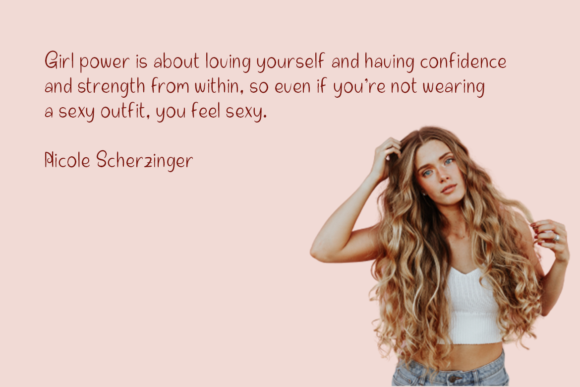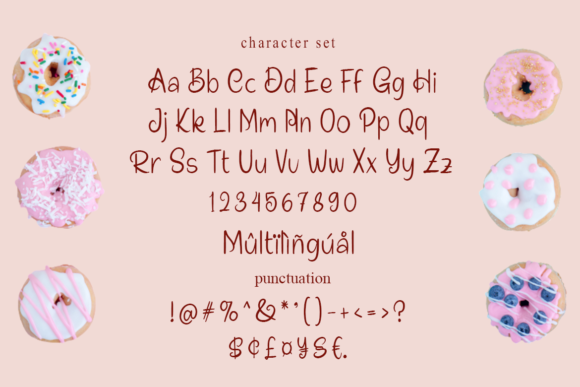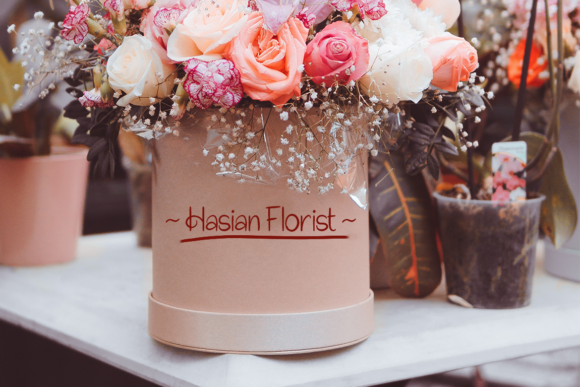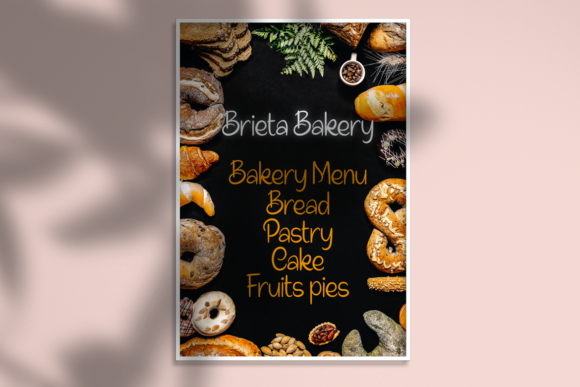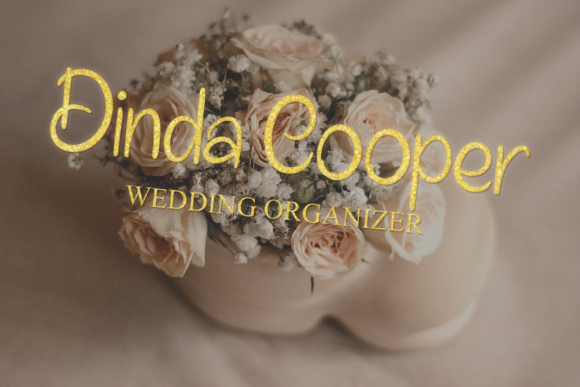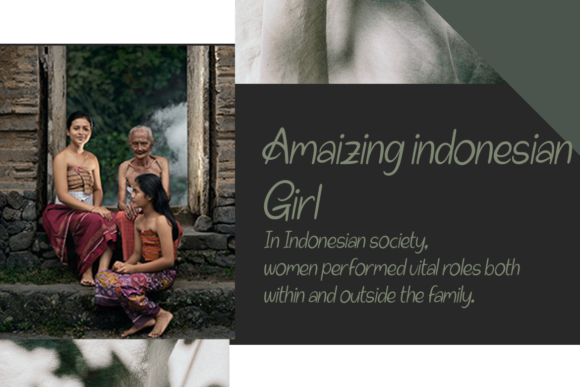
Discover the Magic of Aubrieta Font
Have you ever been working on a design project and felt like something was missing – a little extra something that would bring it all together? Maybe it’s the perfect font, the one that captures the essence of your vision and transports your audience to a world of joy and romance. For designers, finding that perfect font can be a game-changer.
Enter Aubrieta Font, a beautiful, cursive handwritten font that is sure to delight. With its gentle curves and playful flair, Aubrieta Font is the perfect addition to any design project. Whether you’re creating a wedding invitation, a birthday card, or a romantic blog post, Aubrieta Font will add a touch of whimsy and charm that will leave your audience swooning.
Aubrieta Font Key Features
- Font Family: Aubrieta
- Font Styles: Regular, Italic, Bold, Bold Italic
- Unique Characteristics: Delicate, cursive script with a vintage feel, ideal for decorative and creative projects
Aubrieta Font Review
Aubrieta Font is a typeface designed to evoke a sense of elegance and sophistication. In my opinion, it does a great job at achieving this aesthetic. ✨ The font’s refined lines and subtle flourishes give it a refined, high-end feel that’s perfect for luxury brands and upscale designs.
- Legibility – Aubrieta Font is highly legible, even at small sizes. The letterforms are well-proportioned and easy to read, making it a great choice for body text.
- Scalability – The font scales well, maintaining its elegance and sophistication across different sizes and resolutions.
However, there are some limitations to consider. ⚠️ For one, Aubrieta Font may not be the best choice for digital displays, as its fine details can get lost at small sizes. Additionally, the font’s ornate nature may not be suitable for designs that require a more modern or minimalist aesthetic.
Overall, I think Aubrieta Font is a solid choice for designers looking to create sophisticated and refined designs. While it may have some limitations, its elegance and sophistication make it a great addition to any design toolkit.
Tip: Use Aubrieta font for headings and titles to add a touch of elegance to your designs.
Aubrieta font is ideal for:
- Business cards and marketing